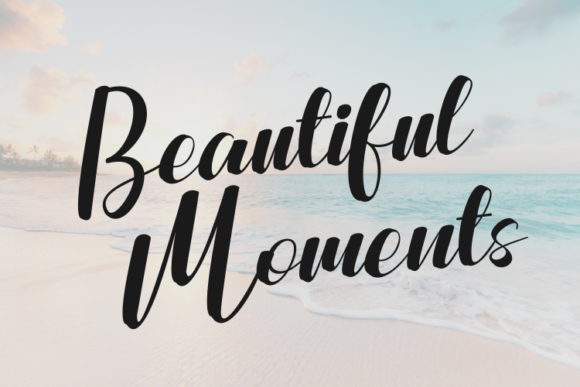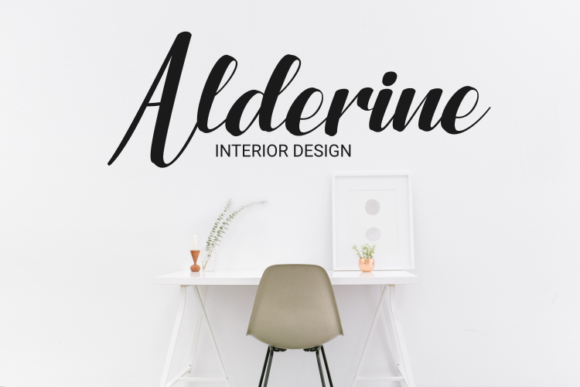
Havergie Font
db-ku.com - Script & Handwritten -- Havergie is a chic, thick lettered script font that emanates trendiness. Its stylish alternates and ligatures make this font the perfect match for any project.